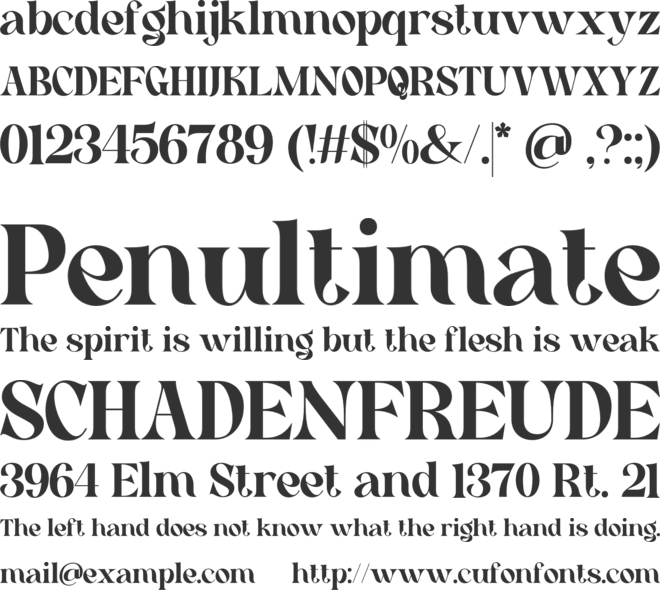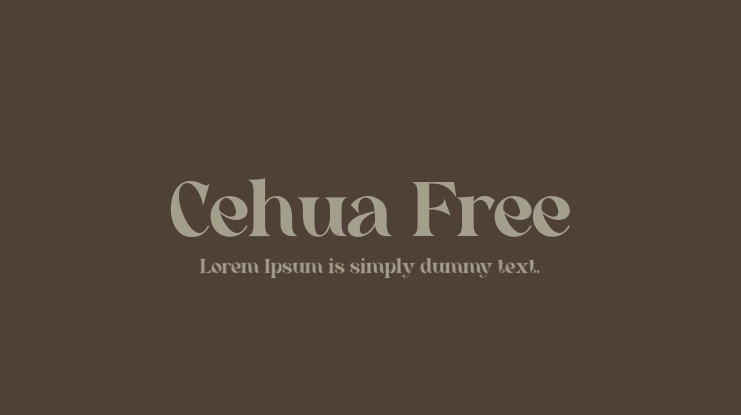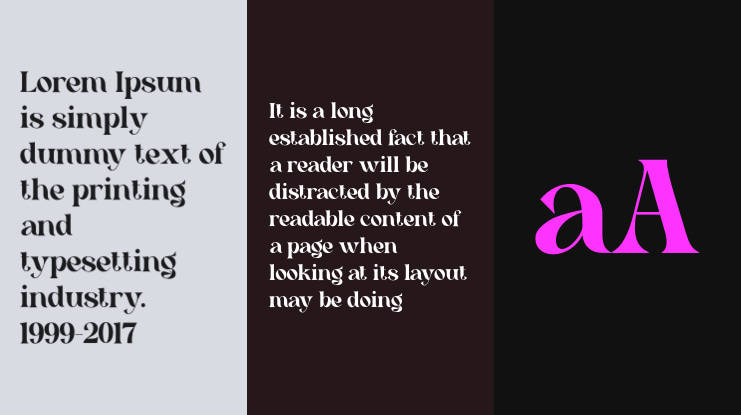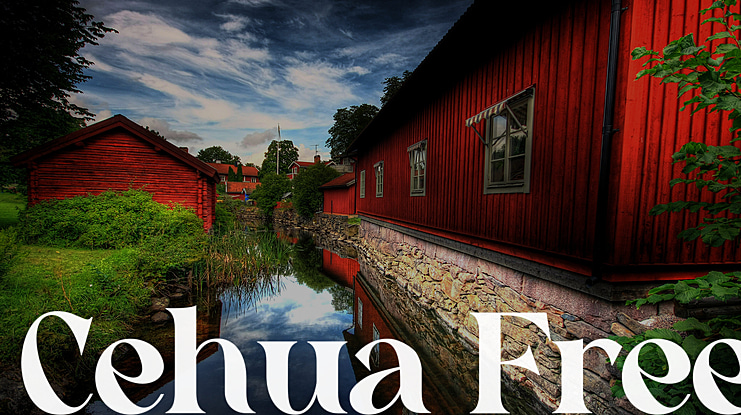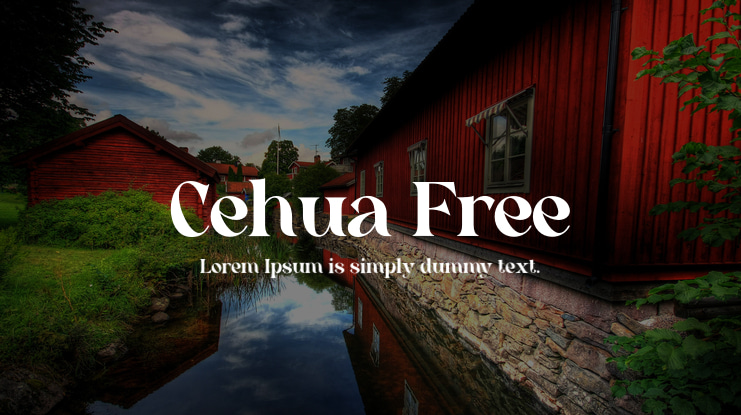
Cehua Free Font
Cehua elegant serif font is a beautiful high contrast font. Cehua elegant serif font work well for beauty product branding because Cehua contain a variety of letters and ligatures that add a feminine feel to your designs.
Cehua Free font preview